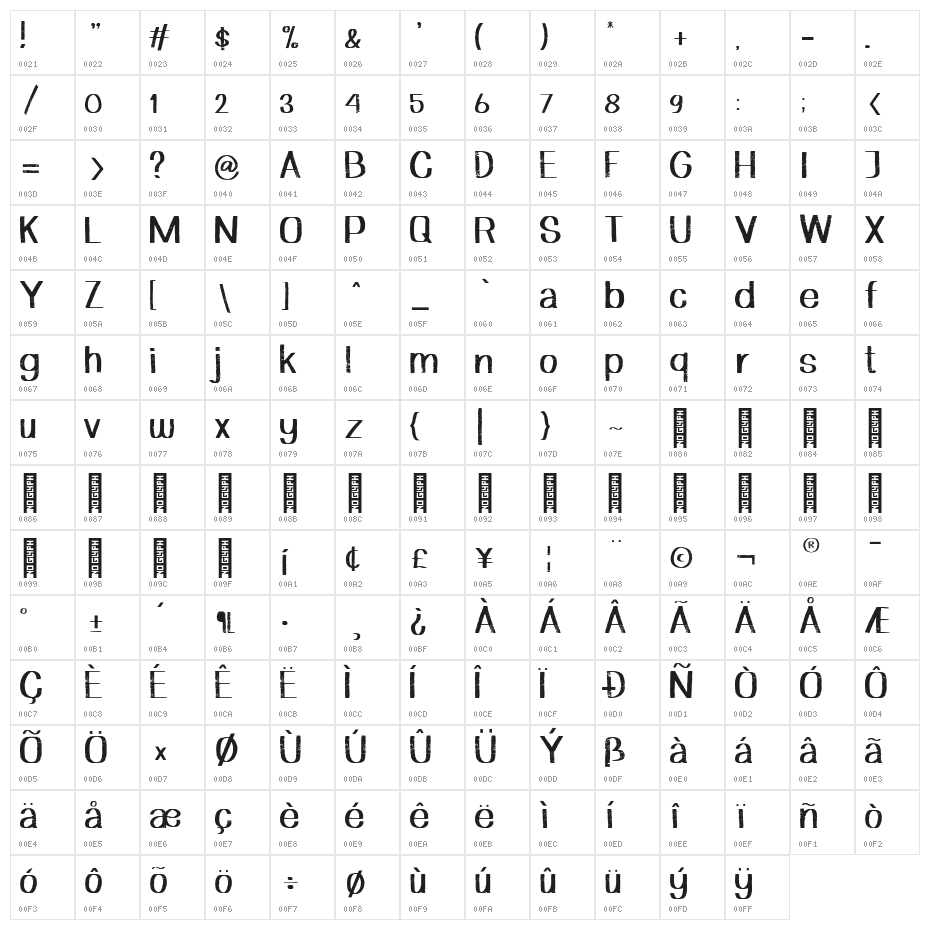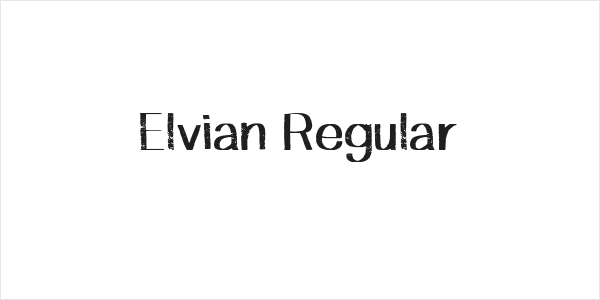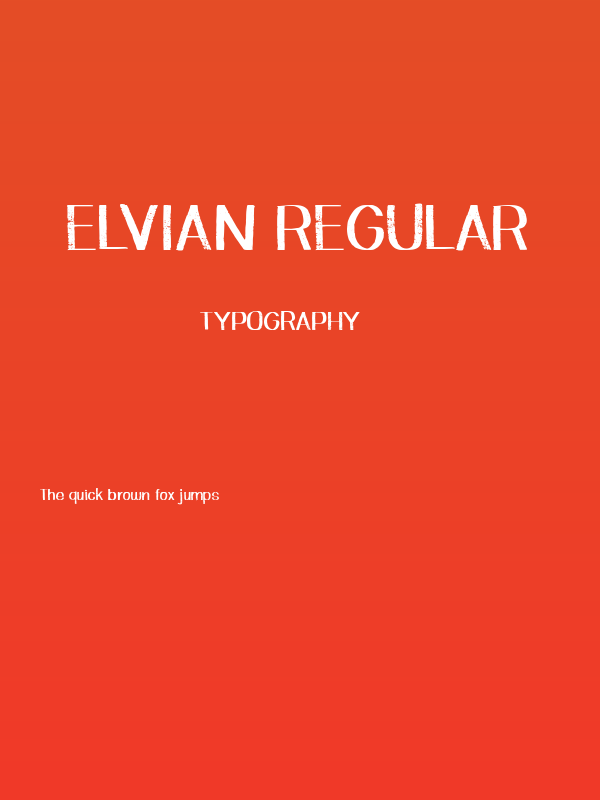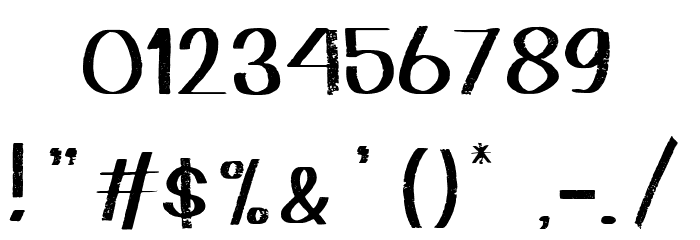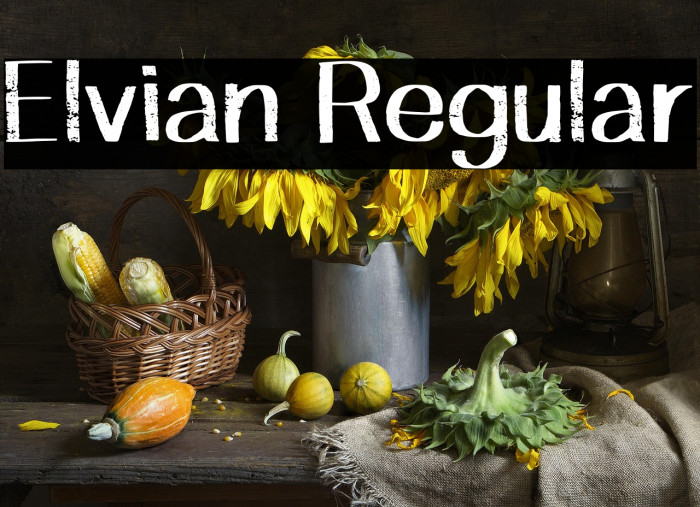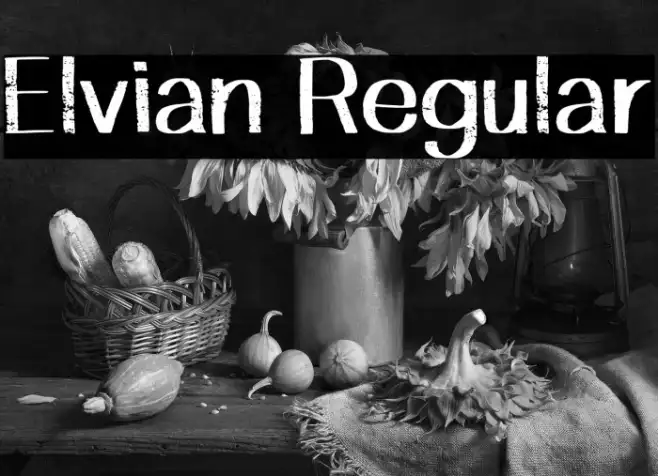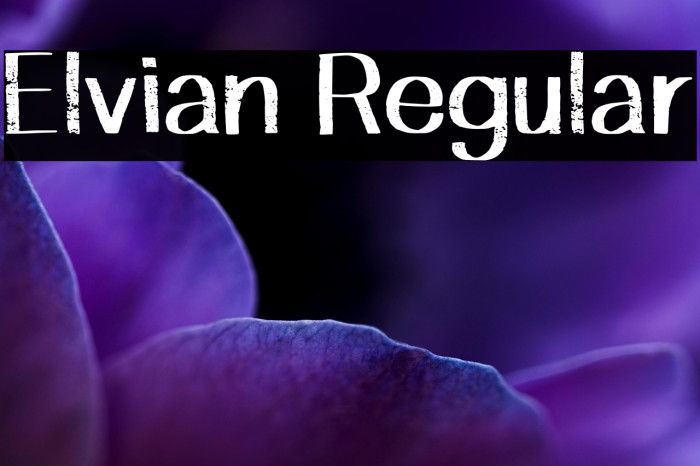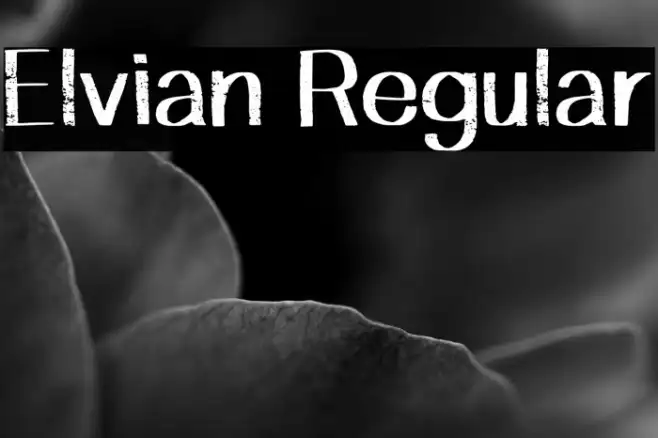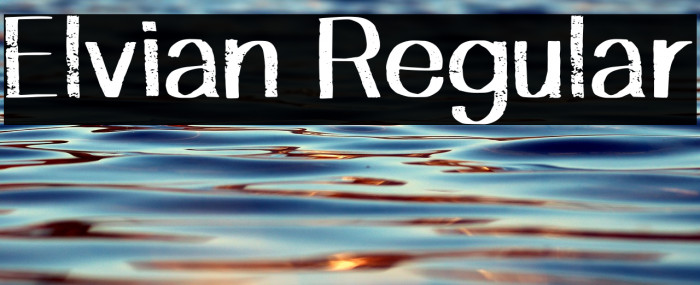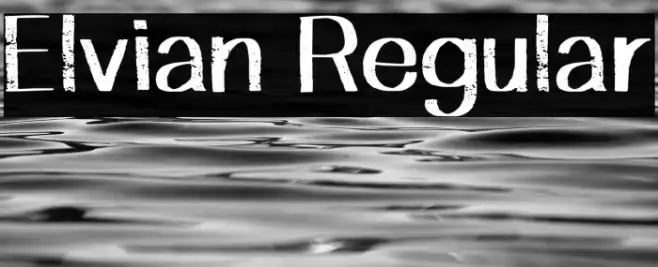
Elvian Regular Font
Elvian Regular Description
This font features a distressed, textured appearance that gives it a rugged and vintage feel. The characters have a hand-crafted look with uneven edges and a slightly worn-out texture, making it ideal for designs that require a rustic or grunge aesthetic. The uppercase and lowercase letters maintain a consistent style, while the numerals and special characters complement the overall design. The font's unique style makes it stand out, adding character and depth to any project.